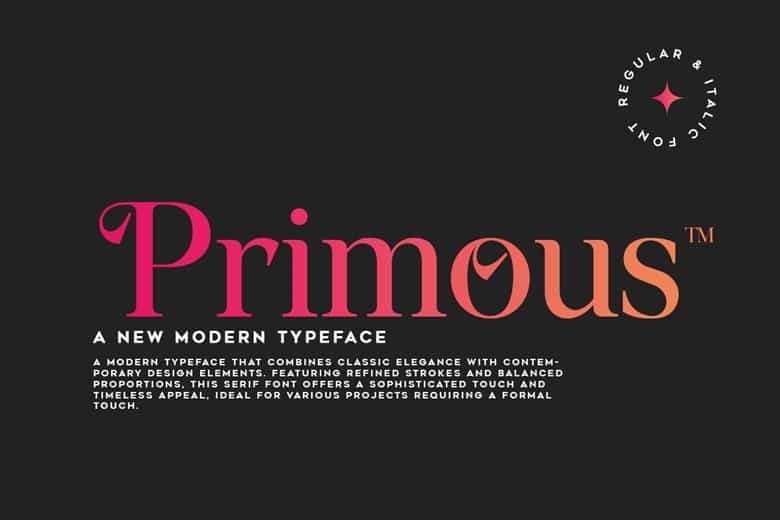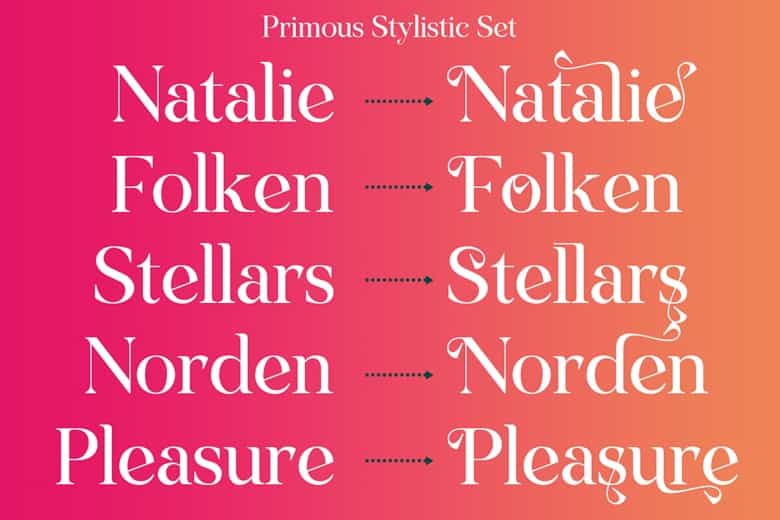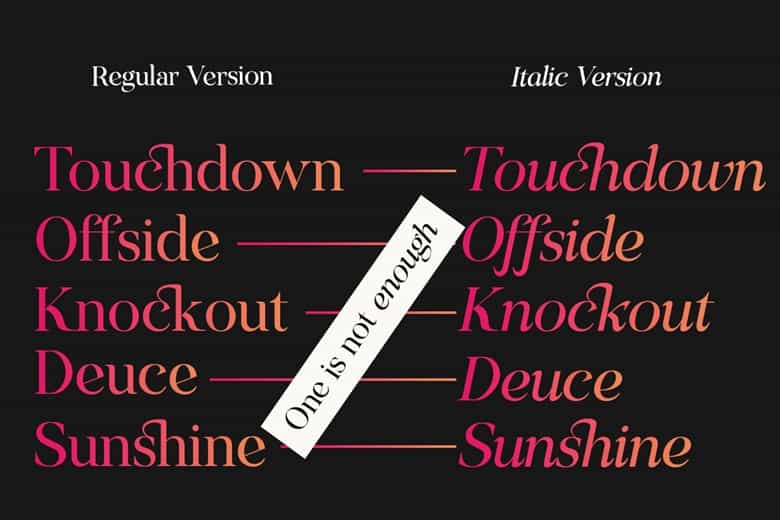
Primous is a new serif font which comes in a stylish and up-to-date design, along with the OpenType feature that will allow you to control the large set of options and stylistic sets, choosing the best font from the large and small variants to create a luxurious and elegant atmosphere.